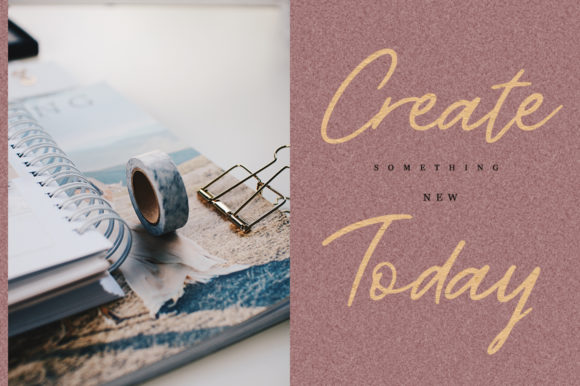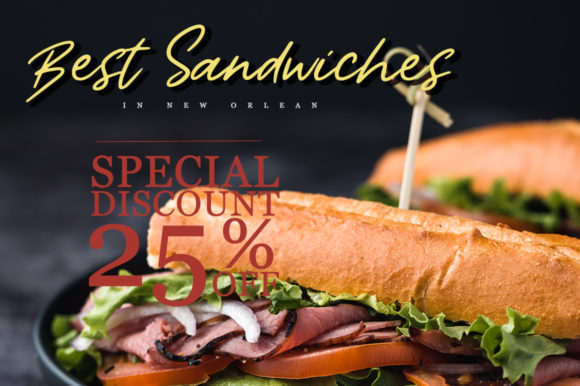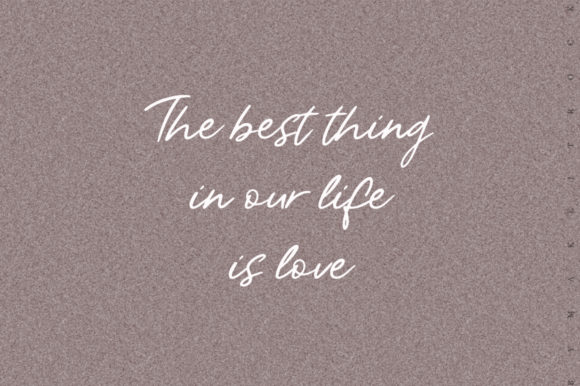
Introduction to Femto Font
Have you ever been working on a creative project, and the perfect font just evades you? You’ve tried numerous options, but nothing seems to capture the essence of your design. That’s where the Femto Font comes in – a game-changing, high-quality font that’s sure to elevate your creative endeavors.
This light and contemporary handwritten font boasts a unique spin that sets it apart from the rest. With its bold elegance, the Femto Font is the perfect design resource for any project, from branding to typography-focused designs. Whether you’re working on a free download or a paid project, this versatile font is sure to inspire and captivate your audience.
Key Features of Femto Font
- High-quality font designed for creative projects, ideal for use as a design resource.
- Unique, minimalist design with a transparent background, making it easy to use in various design contexts.
- High-resolution design, suitable for use at high resolutions, including 300 DPI and above.
- Perfect for use in digital design, including web design, graphic design, and UI/UX design projects.
Honest Review: Femto Font
I recently stumbled upon Femto Font and I’m excited to share my honest thoughts on this design resource. As a designer, I’m always on the lookout for high-quality fonts that can elevate my creative projects.
- ✨ The font is incredibly versatile, with a wide range of styles and weights that can be used for various design applications.
- ✨ The transparent background makes it easy to layer and combine with other design elements.
- ⚠️ The font may not be as customizable as some other design resources, which can be a limitation for designers who like to tweak and adjust their fonts to perfection.
- ⚠️ The font may not be suitable for use in very small sizes, as it can become difficult to read.
Overall, I’m really impressed with Femto Font. It’s a high-quality design resource that can add a professional touch to any creative project. While it may have some limitations, I think it’s a great addition to any designer’s toolkit. If you’re looking for a versatile and easy-to-use font, Femto Font is definitely worth checking out.
Tips for Getting the Most Out of Femto Font
To get the most out of Femto Font, try using it in conjunction with a transparent background to create eye-catching graphics. You can also experiment with different font sizes and styles to add visual interest to your project.
Femto Font is a versatile design resource that can be used in a variety of creative projects, including logos, brochures, and social media graphics. Its high-quality design and transparent background make it perfect for creating professional-looking materials.